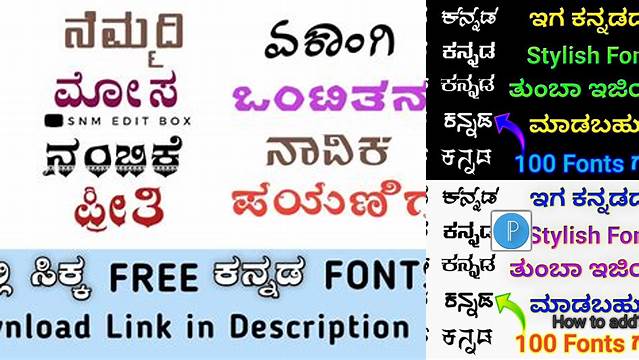
Awesome Kannada Fonts: Copy & Paste Online!
Hey guys! Ready to dive into the vibrant world of Kannada script? If you're looking for creative Kannada fonts online that you can easily copy and paste, you've come to the right place. I'm going to guide you through everything, from finding cool fonts to using them in your projects. Let's get started and make your content pop with the beauty of Kannada!
Exploring Beautiful Kannada Fonts for Digital Designs
Okay, so you're pumped to find some awesome Kannada fonts, yeah? Well, let's talk about where to look. The internet is a treasure trove of options. You can find a variety of free and premium fonts that'll fit any design. When you're choosing, think about what kind of vibe you want. Do you want something modern and sleek, or something more traditional? There are options for every style! Look for fonts that are well-designed, meaning they're easy to read and they have all the characters you need. Think about what you'll use them for. Will you be using them for headings, body text, or maybe both? Different fonts are better suited for different tasks, so keep that in mind. Also, remember that Kannada script has some unique features, so make sure the fonts you choose support those. Look at how the fonts handle the conjunct consonants and the vowel signs; they should look good and not clash. And don't forget to check the licensing! Most free fonts are free for personal use, but if you're using them for a commercial project, you might need to get a license. It's important to respect the creators of these fonts, right? Always check the terms of use to ensure you're using the fonts legally. Finding a good Kannada font will help your designs stand out from the crowd. If you're not sure where to begin, Google Fonts is a great starting point, also check some other sites that offer quality font collections. Check the previews and try them out! The best way to see if a font works is to try it out.
Key Features of Kannada Fonts
Kannada fonts have some key features that set them apart. You need to look out for these when you're making your selection. Good Kannada fonts must have all the basic vowels and consonants. Check that all the characters are included, so you don't end up with missing letters. The fonts should properly handle 'halant' characters and conjunct consonants, which are important for reading Kannada text clearly. Also, a good font will have a well-designed layout, this ensures good spacing, so that your text is readable. You will want kerning, which is the space between characters, so your text looks neat and professional. Good Kannada fonts will also have great ligature support. Ligatures are two or more letters that are joined to create a single character. You'll want to be sure that the font supports ligatures for proper display. Look for fonts that support different font styles, like bold, italics, and regular. This will help you add emphasis to your text. Consider the font's weight, some fonts are heavy and others light, choose the one that best fits your project. And the font should also have different font sizes and styles so that it can be used in different situations, like headings or body text. Always ensure the font displays correctly across different devices and software. The font must display correctly on your computer and any device that your audience uses.
Step-by-Step: Copying and Pasting Kannada Text
It's super easy, you don't need any special skills. Here's the quick guide:
- Find the Text: Either type the Kannada text you need or find it online.
- Select the Text: Highlight the text you want to copy.
- Copy: Right-click and select 'Copy', or use the keyboard shortcut Ctrl+C (Windows) or Cmd+C (Mac).
- Paste: Go to where you want to paste the text, right-click, and select 'Paste'. Or, use the keyboard shortcut Ctrl+V (Windows) or Cmd+V (Mac).
- Choose Your Font: Select the pasted text and choose the correct Kannada font from the font menu in your software.
That’s all there is to it! Easy, right?
Troubleshooting Font Display Issues
Sometimes, things don't go as planned. Here's how to fix common problems:
- Font Not Displaying Correctly: Make sure the font is installed on your system. If not, download and install it. If the issue continues, restart the program or your computer. Check if the program you're using supports Kannada fonts. Also, ensure the font file is not corrupted. Try to download the font again.
- UTF-8: Make sure you're using UTF-8 encoding. It's the most common encoding for Kannada and will ensure all characters display correctly.